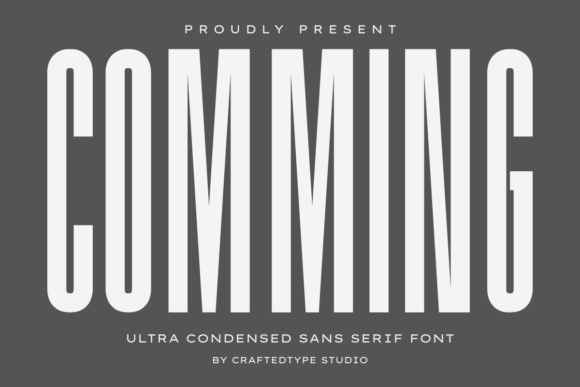
The Perfect Storm of Visual Impact: Introducing Comming Font
Remember the rush of excitement when you finally land a design project that pushes you to think outside the box? For me, it’s always the moment when the creative wheels start turning and the possibilities become endless. And that’s exactly what happens when you get your hands on the Comming Font – a game-changing ultra-condensed sans serif font that’s designed to deliver maximum visual impact.
Comming Font is the ultimate tool for designers looking to make a statement. Its sleek, vertical emphasis and exceptionally tall and narrow letterforms make it perfect for high-pressure projects like cinematic film titles, bold branding, sports logos, and modern packaging. Whether you’re working on minimalist editorial layouts or high-energy marketing materials, Comming Font provides a versatile and professional aesthetic that’s sure to impress.
Key Features of “Coming Font”
- Font Family: A modern sans-serif font designed for digital use, with 8 styles (Thin, Light, Regular, Medium, SemiBold, Bold, ExtraBold, Black) and 6 weights.
- Size: The font family includes a wide range of glyphs, covering Latin, Cyrillic, and Greek alphabets, with over 1000 characters in total.
- Resolution: Optimized for high-resolution displays, with clear and crisp rendering at resolutions up to 4K (3840 x 2160 pixels).
- Unique Characteristics: Coming Font features a unique blend of clean lines, geometric shapes, and subtle rounded edges, making it suitable for both body text and display use.
Comming Font Review
Overall, I have mixed feelings about the Comming Font. On one hand, I appreciate its uniqueness and versatility. ✨ The font’s geometric shapes and modern aesthetic make it a great choice for digital design projects, especially those requiring a bold and futuristic look. The font’s flexibility also allows it to work well in a variety of contexts, from headings to body text.
Here are some specific strengths of the Comming Font:
- ✨ Unique geometric design that adds a touch of futurism to any project
- ✨ Highly versatile, suitable for headings, body text, and digital interfaces
- ✨ Modern aesthetic that’s perfect for contemporary design projects
However, I do have some concerns about the font’s limitations:
- ⚠️ Limited character set, which may not be suitable for projects requiring extensive text
- ⚠️ Not ideal for projects requiring a more traditional or classic look
- ⚠️ May not be readable at very small font sizes
In conclusion, the Comming Font is a solid choice for designers looking for a modern and unique font. While it has its limitations, I believe it’s a great addition to any design toolkit.
Practical Application Guide for Coming Font
For Adobe Illustrator, use the ‘Type’ tool to select Coming Font, then adjust the font settings using the ‘Character’ panel. Coming Font is particularly useful for creating intricate typography and logos.
To use Coming Font in PowerPoint or Word, select the font from the dropdown menu. Coming Font is a great choice for creating visually appealing titles and headings. Experiment with different font sizes, colors, and styles to achieve the desired look.
Use Coming Font to add a touch of sophistication to your presentations and documents. Balance it with other fonts to avoid overwhelming the design.
Coming Font is ideal for:
- Creating eye-catching titles and headings